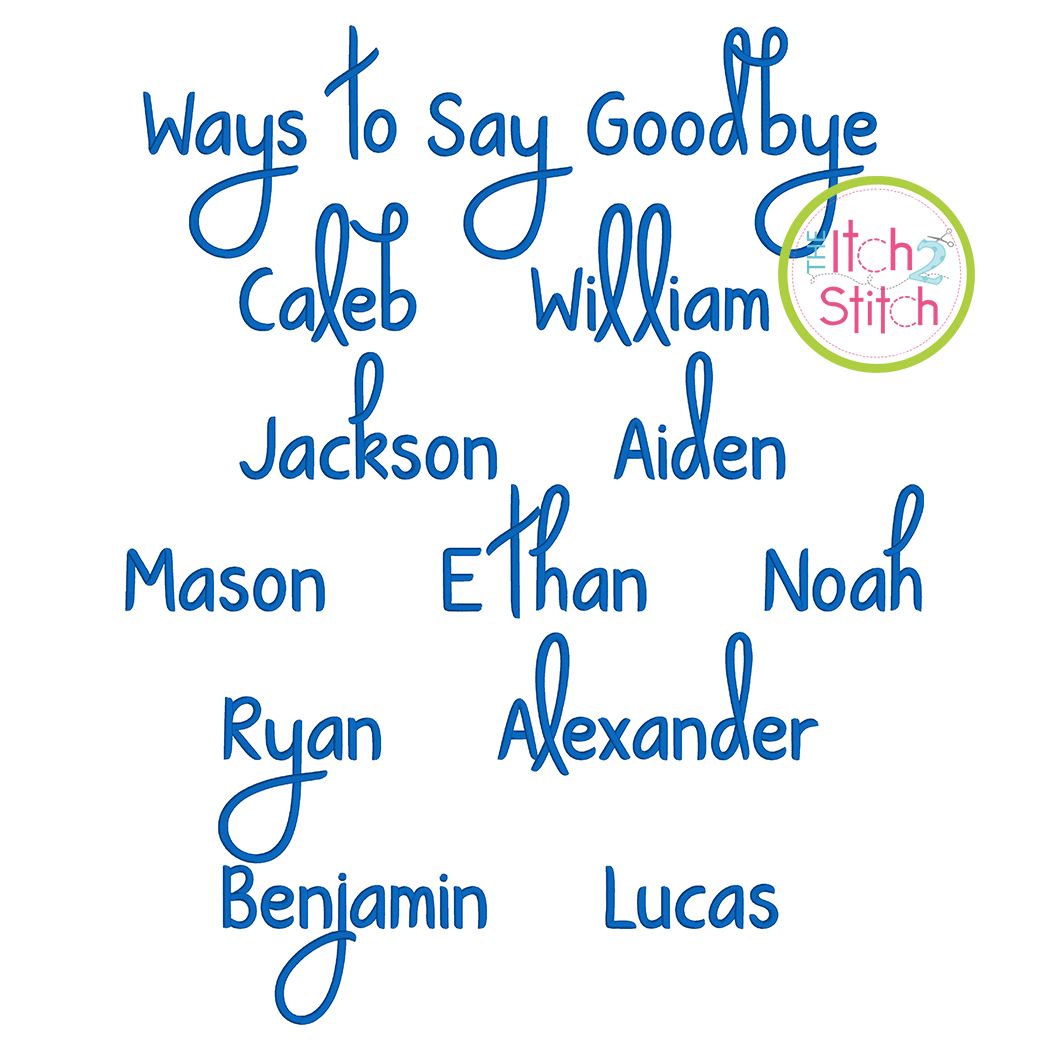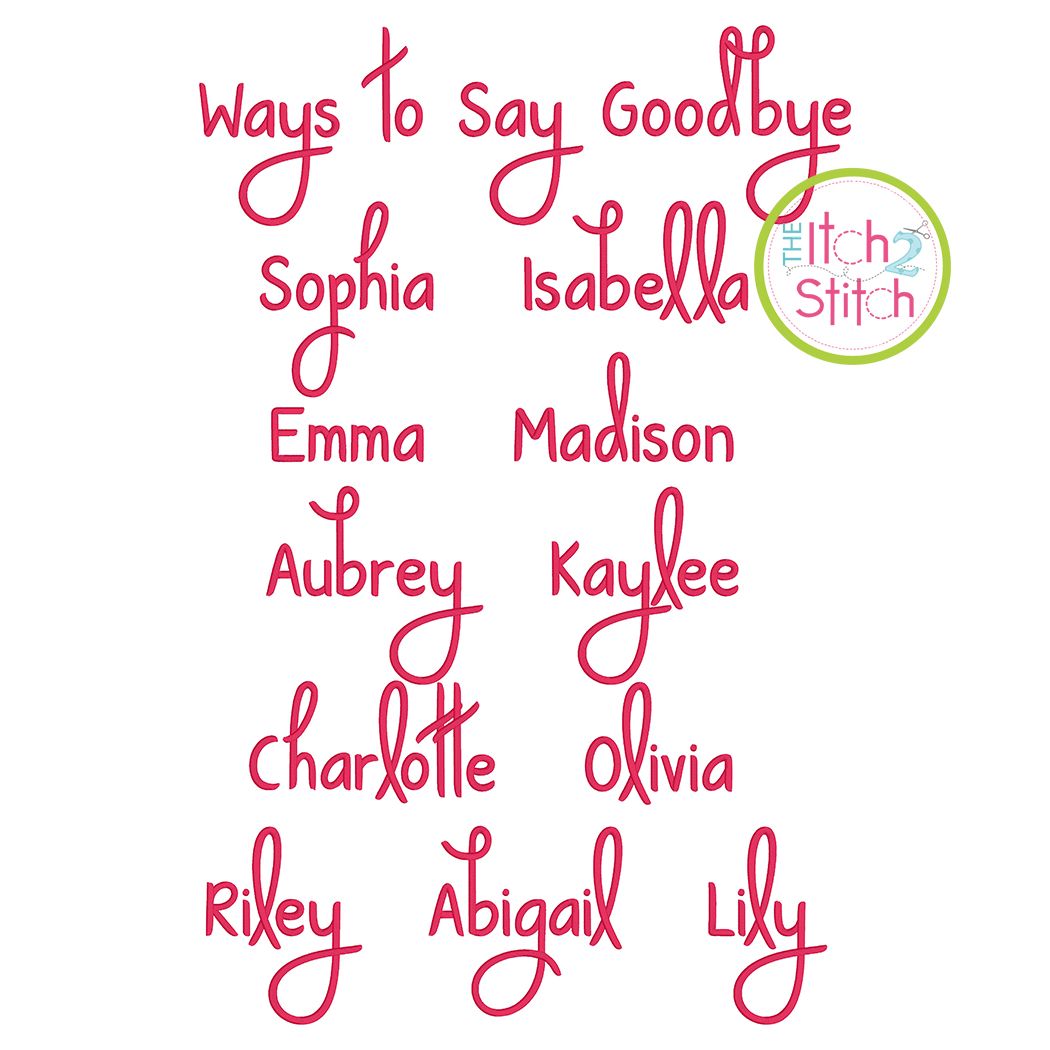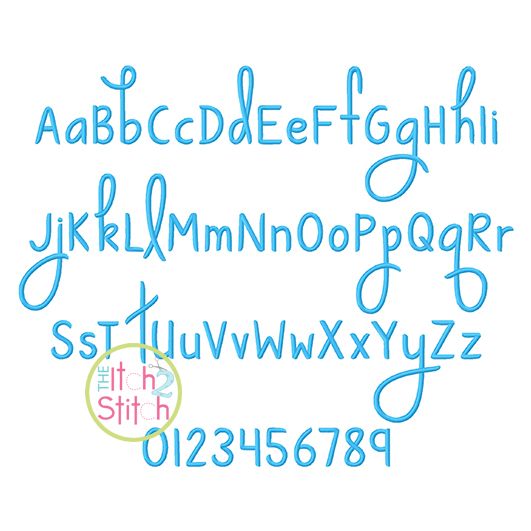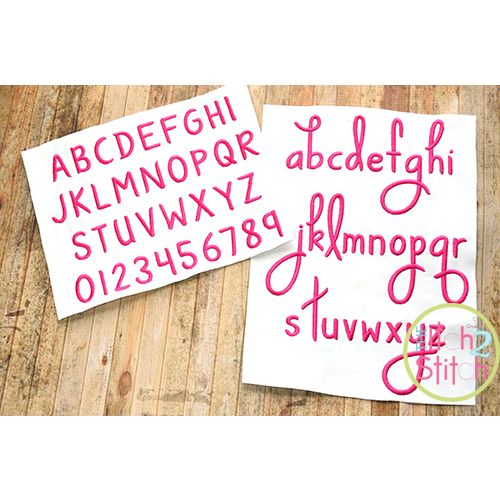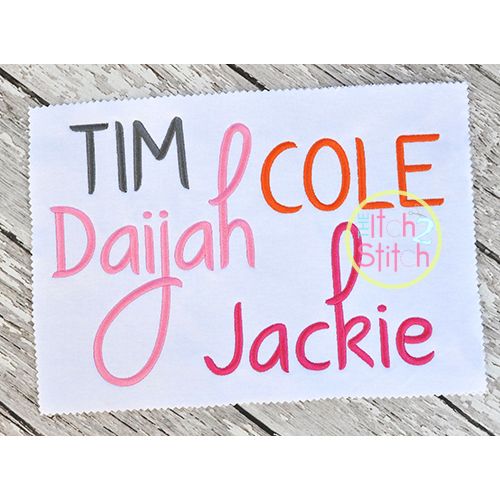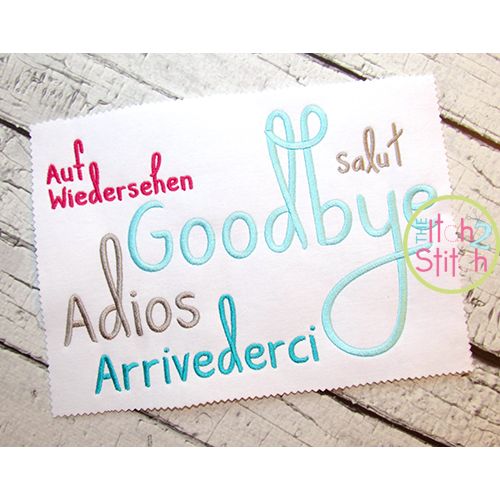
Ways to Say Goodbye Satin Stitch Embroidery Font
You will receive all Aa-Zz letters and Numbers (62 files) in four sizes. Font size based on height of capital letters. Some of the lowercase letters are designed to descend signficantly below the baseline. Because of that, please note that not all of the 2" letters fit in the 4x4 hoop.